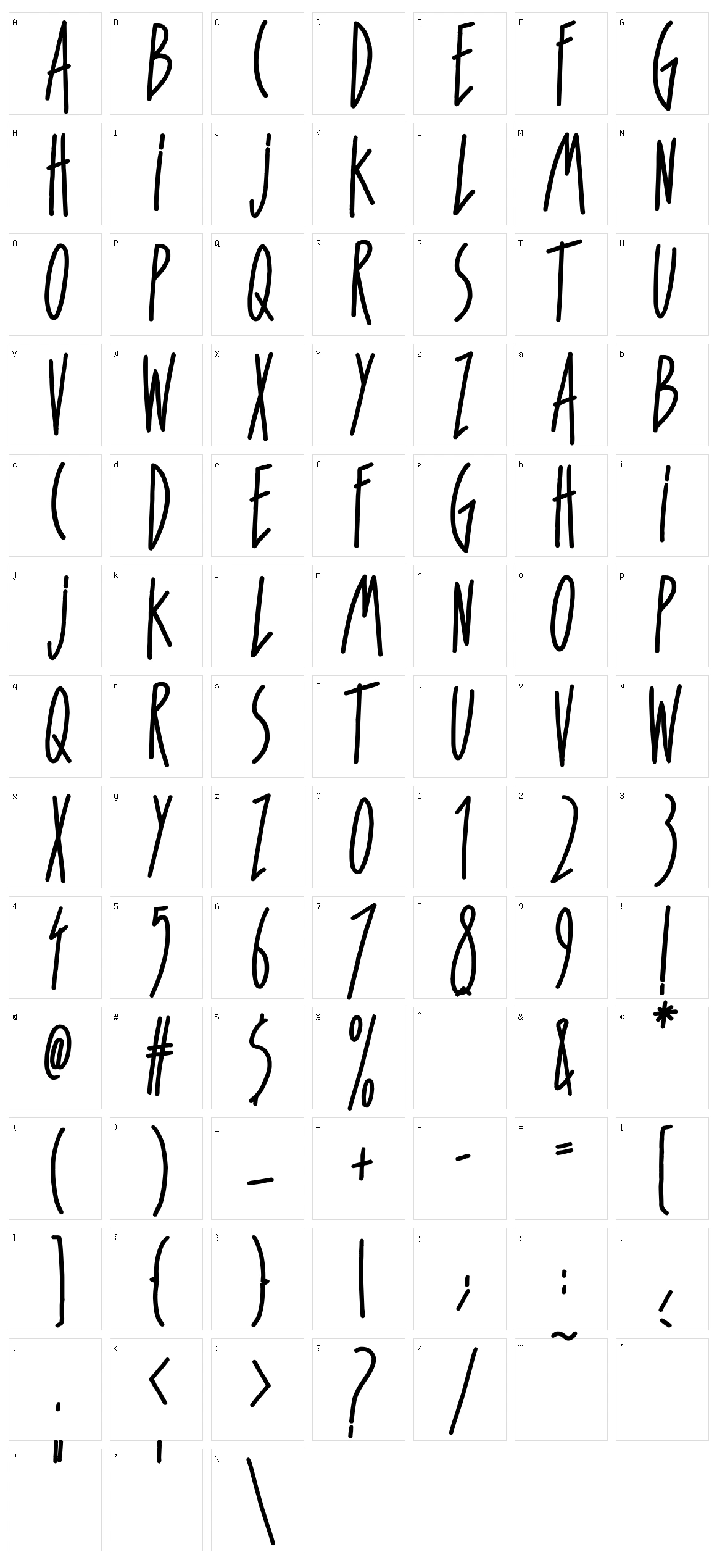
The free font For Girls Only Bold is carefully designed by imagex, showcasing a thoughtful balance of creativity and usability and falls under the Script font style. When you download the ZIP file, it contains only 18.13 KB of font files, making it lightweight and quick to download. Please review the license details below to understand permitted usage and distribution rights. If license information is not available, we recommend using this font for personal projects only or contacting the author directly for commercial usage permissions.